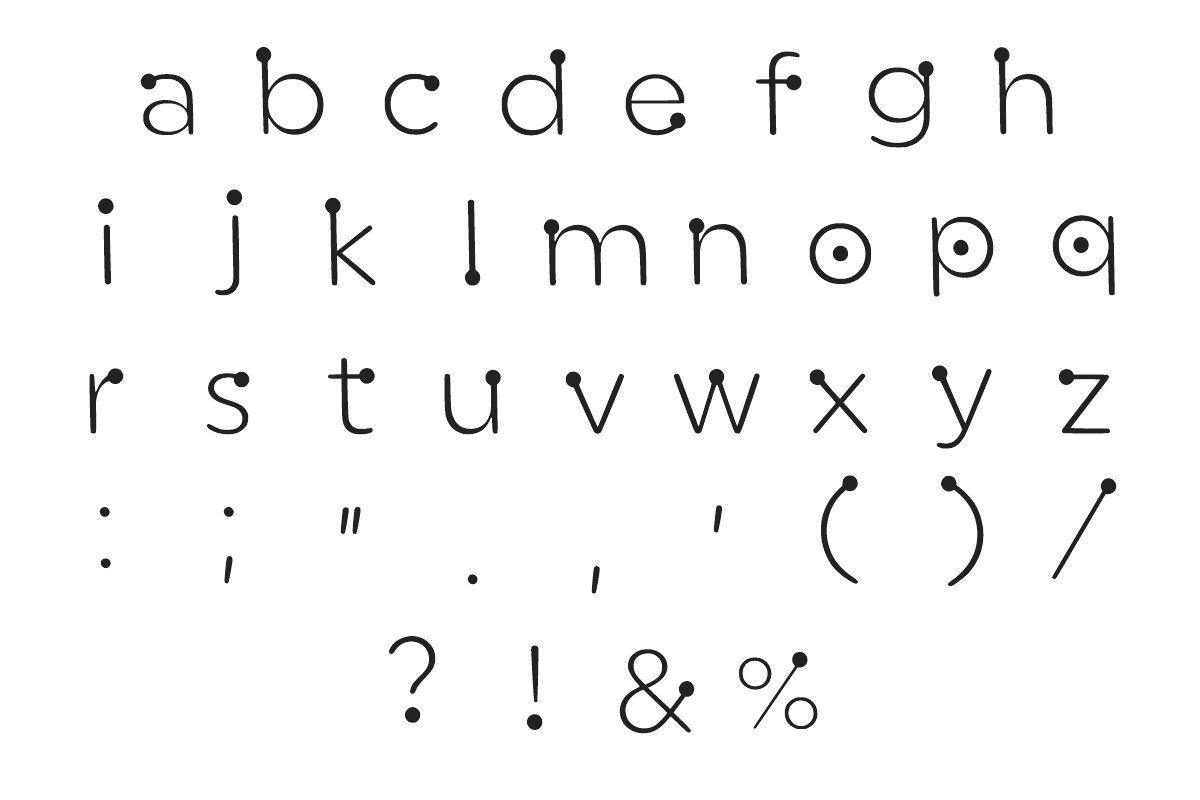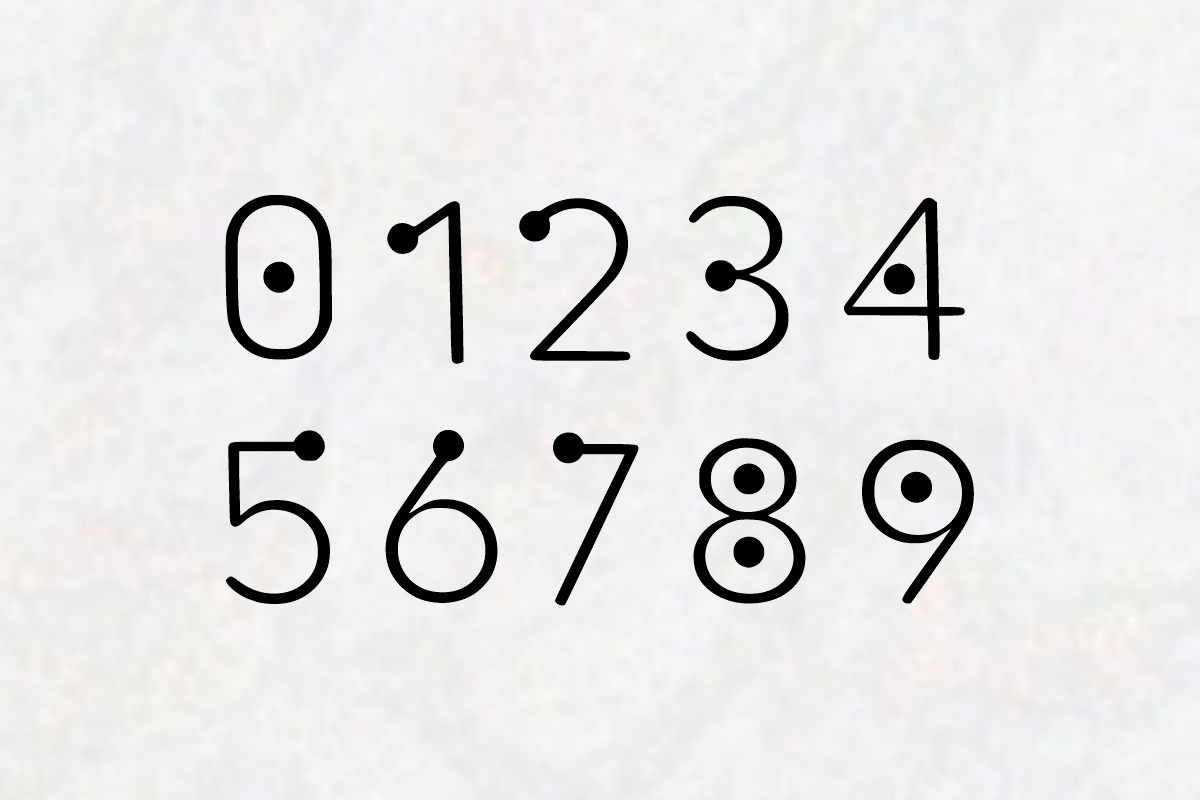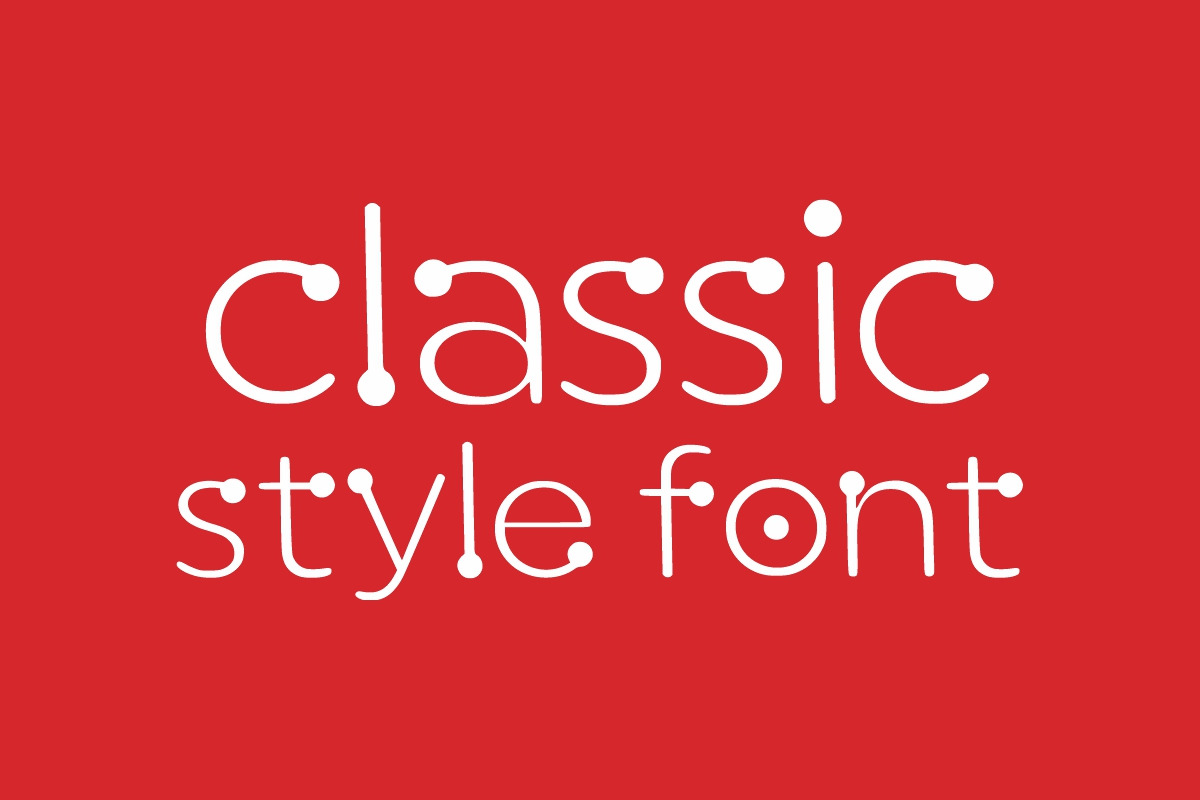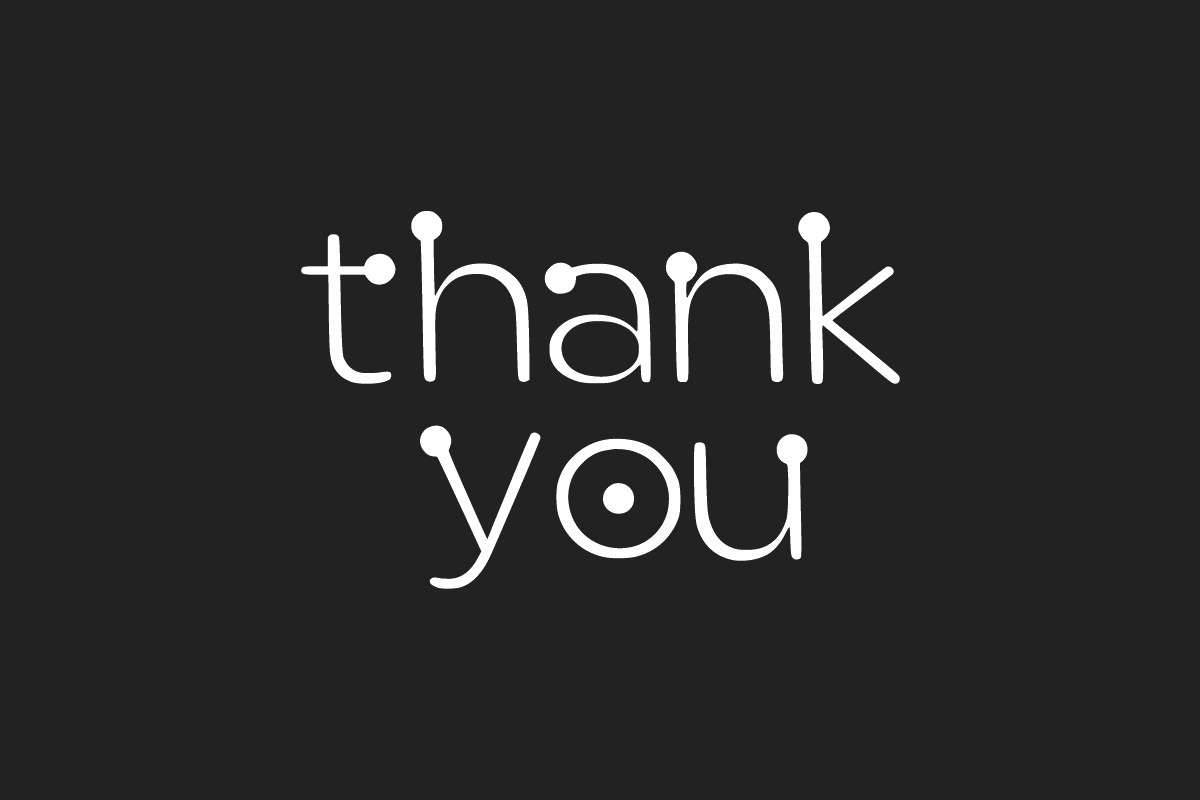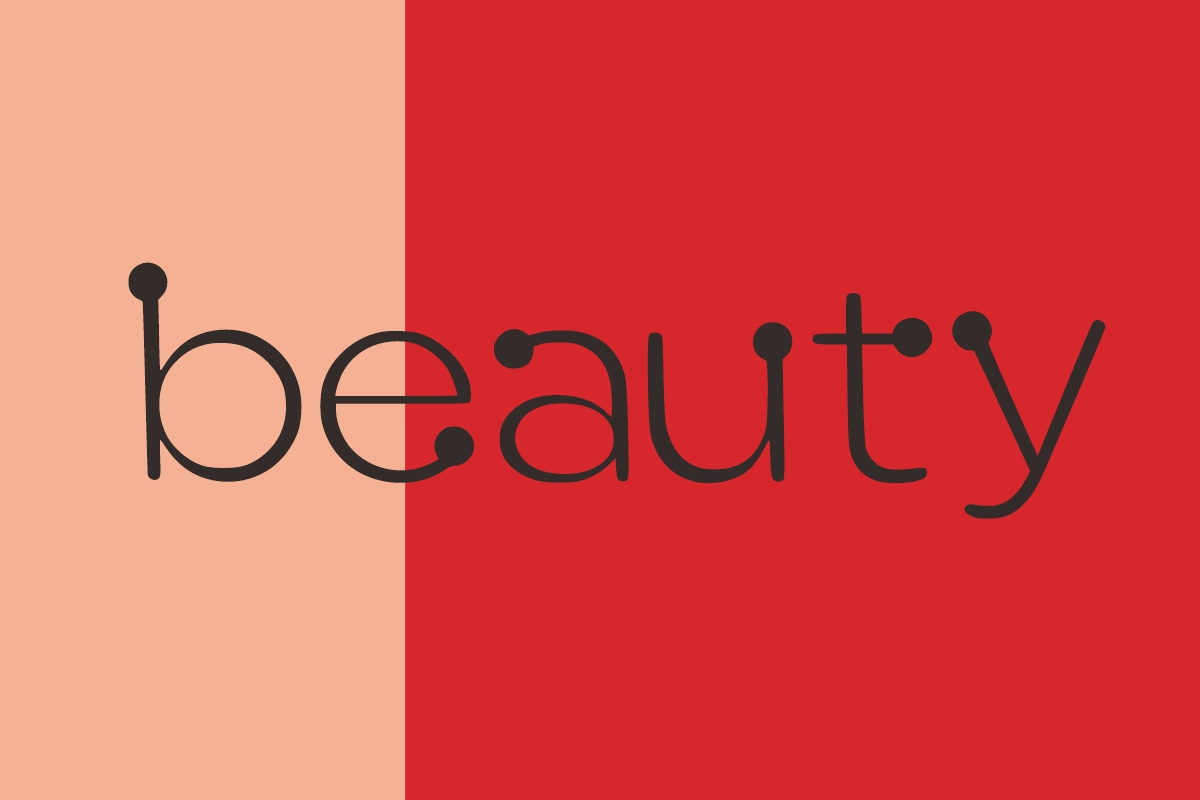
Red Dot
Red Dot is a fun and friendly display font. No matter the topic, this font will be an incredible asset to your fonts’ library, as it has the potential to elevate any creation.